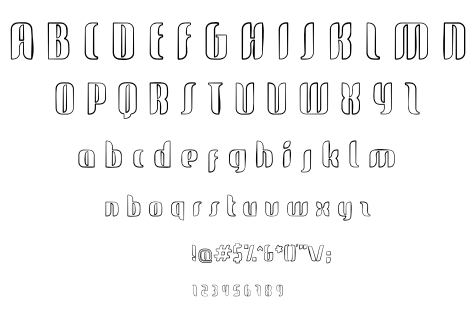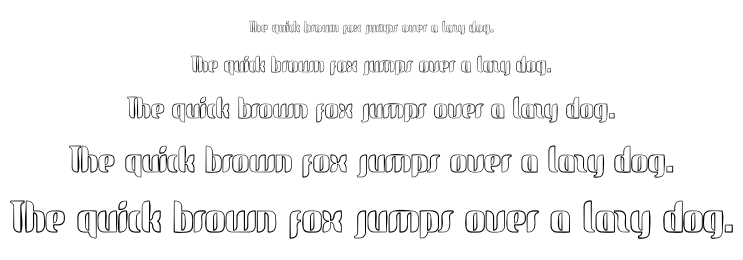
Glide is minimalist and slightly rounded typeface containing both Cyrillic and Roman alphabets. Comes in solid and sketch variants Glide is as futuristic as it is smoothly organic. The first typeface designed by typedepot.